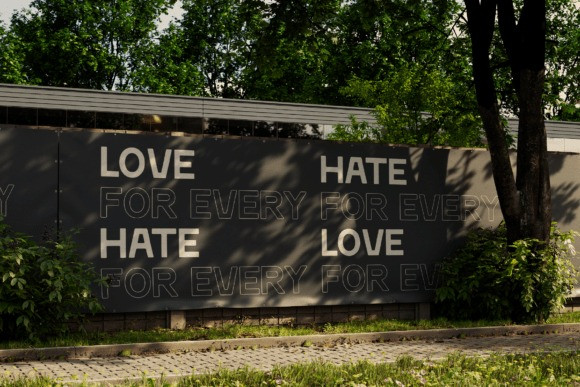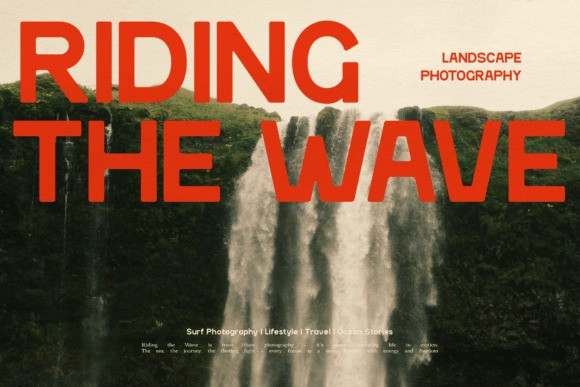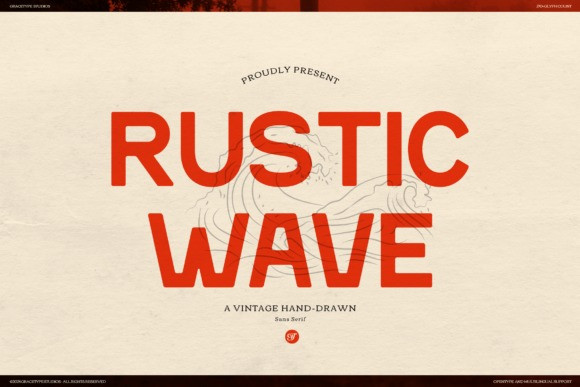
Rustic Wave Font
Rustic Wave Font is a vintage handdrawn font, suitable for any projects such as: logos, branding projects, homeware designs, product packaging, mugs, quotes, posters, shopping bags, t-shirts, book covers, name card, invitation cards, greeting cards, label, photography, watermark, special events, and all your other lovely projects that need a Vintage Hand Drawn taste.